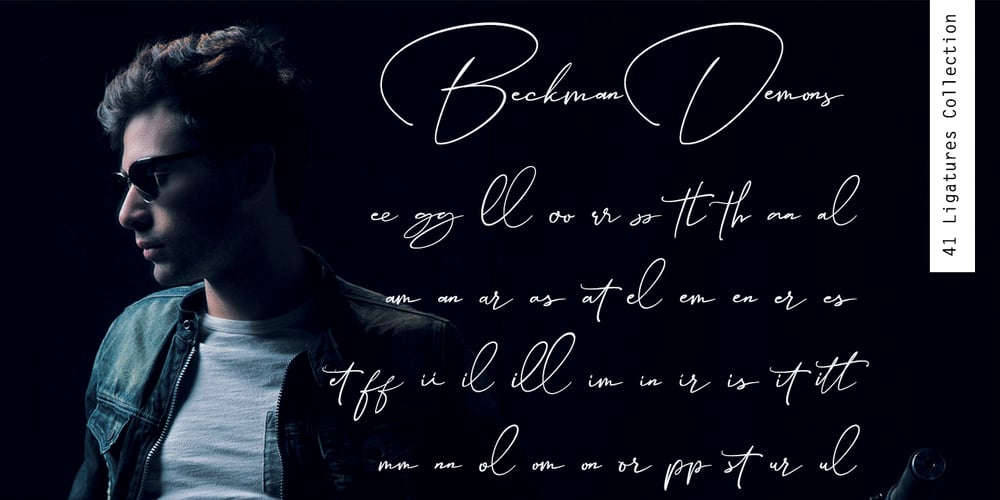
Beckman Demons Font Family was designed by Alde Saputro and published by Aldedesign. Beckman Demons contains 1 styles and family package options. Beckman Demons is a stylish signature font that is inspired by modern photography. It’s easy to use, to create a stunning watermark for your photos, invitations, branding. It also works great as a business signature or on other branding materials. – PUA encoded = Accessible in the Adobe Illustrator, Adobe Photoshop, Adobe InDesign, even work on Microsoft Word. – PUA Encoded Characters – Fully accessible without additional design software. How to access alternate glyphs? you can see it on this link: http://goo.gl/1vy2fv